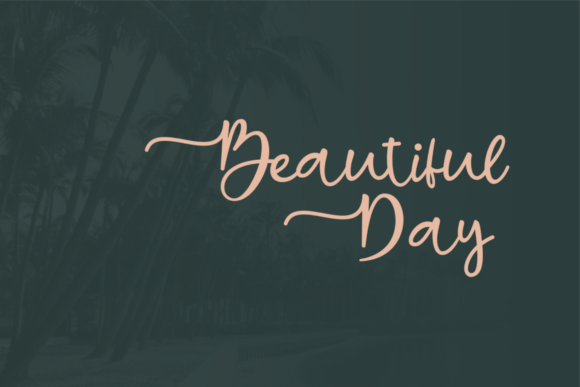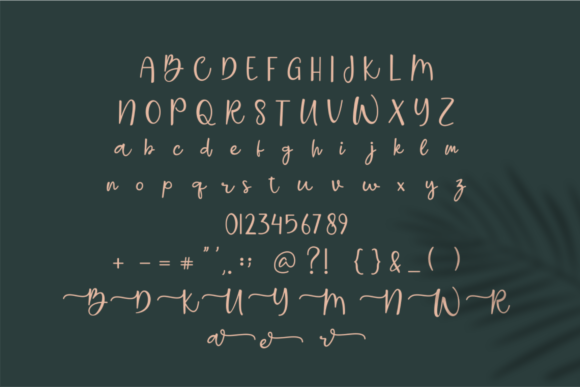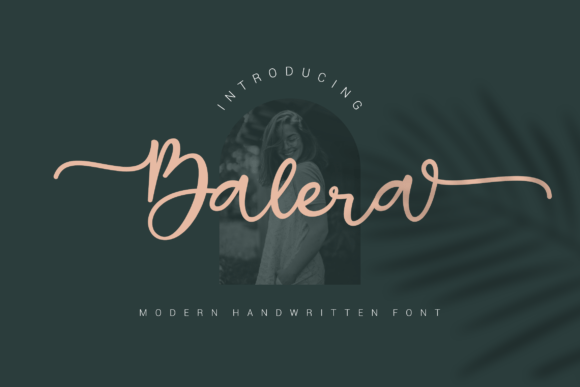
Introducing Balera Font: The Modern Handwritten Script for Exceptional Designs
In the world of typography, fonts play a crucial role in conveying the tone and personality of a design. For crafters, designers, and artists, finding the perfect font can be a daunting task. However, if you’re looking for a modern handwritten script that exudes elegance and sophistication, look no further than Balera Font. This stunning font is designed to add a touch of personality to any project, making it perfect for those who want to create something truly extraordinary.
The Characteristics of Balera Font
Balera Font is a modern handwritten script that boasts a natural and stylish appearance. Its unique characteristics make it an ideal choice for designers and crafters who want to add a personalized touch to their work. Here are some of the key features that set Balera Font apart:
- Natural and Fluid Lines: Balera Font features smooth, flowing lines that give it a natural and effortless look. The font’s curves and strokes are carefully crafted to create a sense of movement and fluidity.
- Stylish and Elegant: This font is perfect for designs that require a touch of sophistication and elegance. Its stylish appearance makes it suitable for high-end projects, such as luxury branding, wedding invitations, and upscale marketing materials.
- Versatile: Balera Font is incredibly versatile and can be used for a wide range of design projects. Whether you’re creating wedding invitations, thank you cards, quotes, greeting cards, logos, or business cards, this font is sure to impress.
Uses of Balera Font
Balera Font is a highly versatile font that can be used for various design projects. Here are some of the most popular uses of this beautiful font:
- Wedding Invitations: Add a touch of romance and elegance to your wedding invitations with Balera Font. Its stylish appearance makes it perfect for formal and informal wedding stationery.
- Thank You Cards: Express your gratitude with beautifully designed thank you cards featuring Balera Font. This font is sure to make your cards stand out and leave a lasting impression.
- Quotes and Greeting Cards: Balera Font is ideal for creating inspirational quotes, greeting cards, and postcards. Its natural and fluid lines make it easy to read and visually appealing.
- Logos and Branding: Use Balera Font to create stunning logos and branding materials that reflect your company’s personality and values.
- Business Cards: Stand out from the competition with beautifully designed business cards featuring Balera Font. This font is sure to make a lasting impression on potential clients and partners.
Why Choose Balera Font?
With so many fonts available, why should you choose Balera Font for your design projects? Here are some compelling reasons:
- Unique and Exclusive: Balera Font is a unique and exclusive font that will set your designs apart from the rest. Its stylish appearance and natural lines make it a standout choice.
- Easy to Read: This font is highly legible, making it perfect for designs that require a clear and concise message.
- Customizable: Balera Font can be easily customized to fit your design needs. Whether you want to change the color, size, or style, this font is highly adaptable.
In conclusion, Balera Font is a modern handwritten script that is perfect for designers and crafters who want to create exceptional designs. Its natural and stylish appearance, versatility, and ease of use make it an ideal choice for a wide range of design projects. Whether you’re creating wedding invitations, thank you cards, quotes, greeting cards, logos, or business cards, Balera Font is sure to add a touch of elegance and sophistication to your work. So why wait? Try Balera Font today and take your designs to the next level!